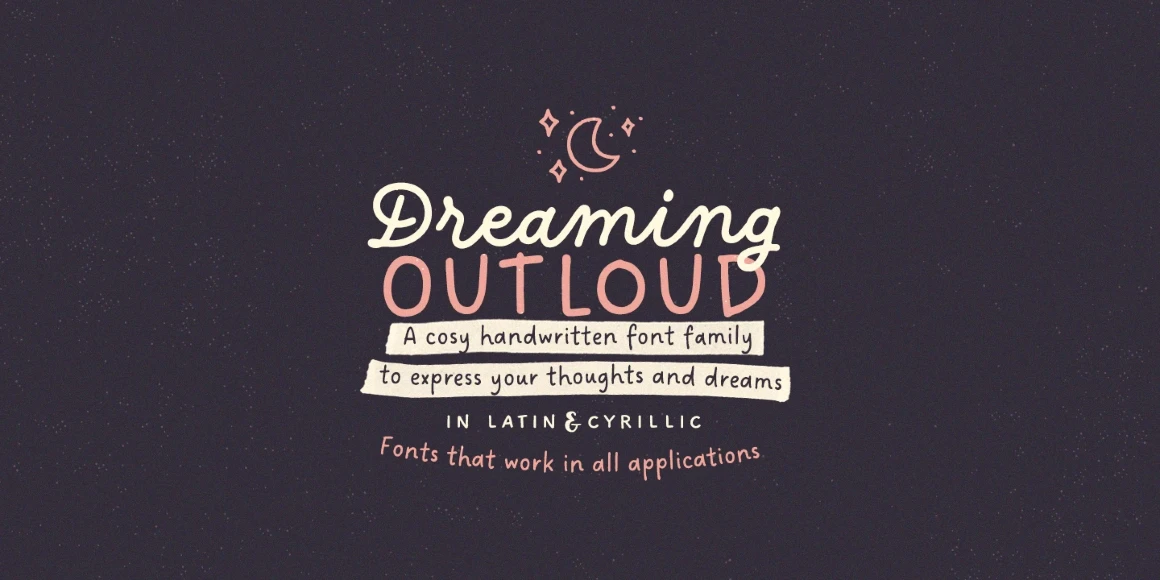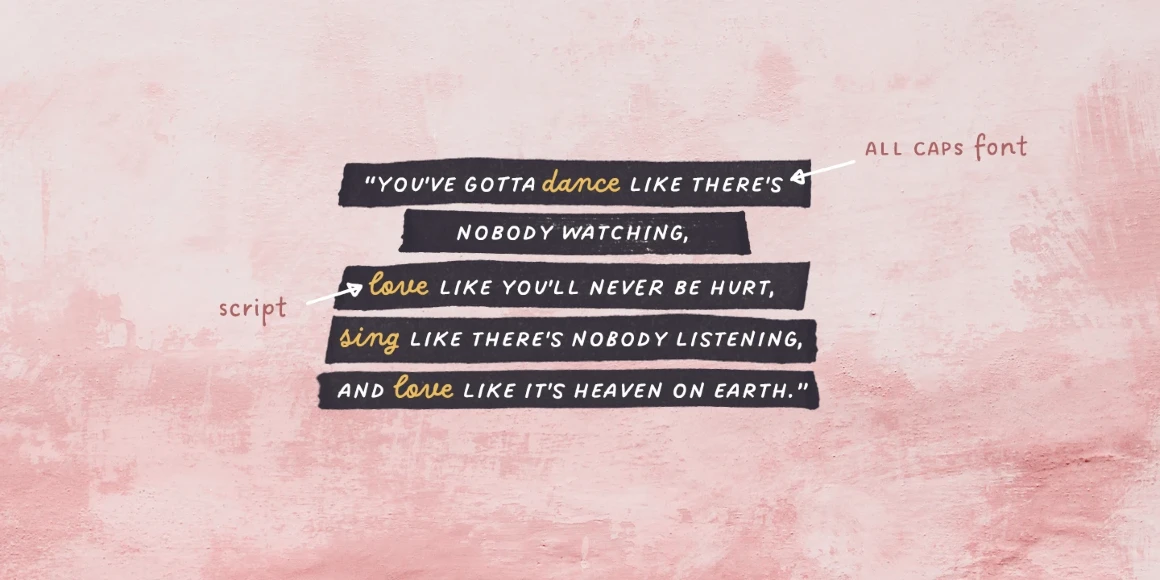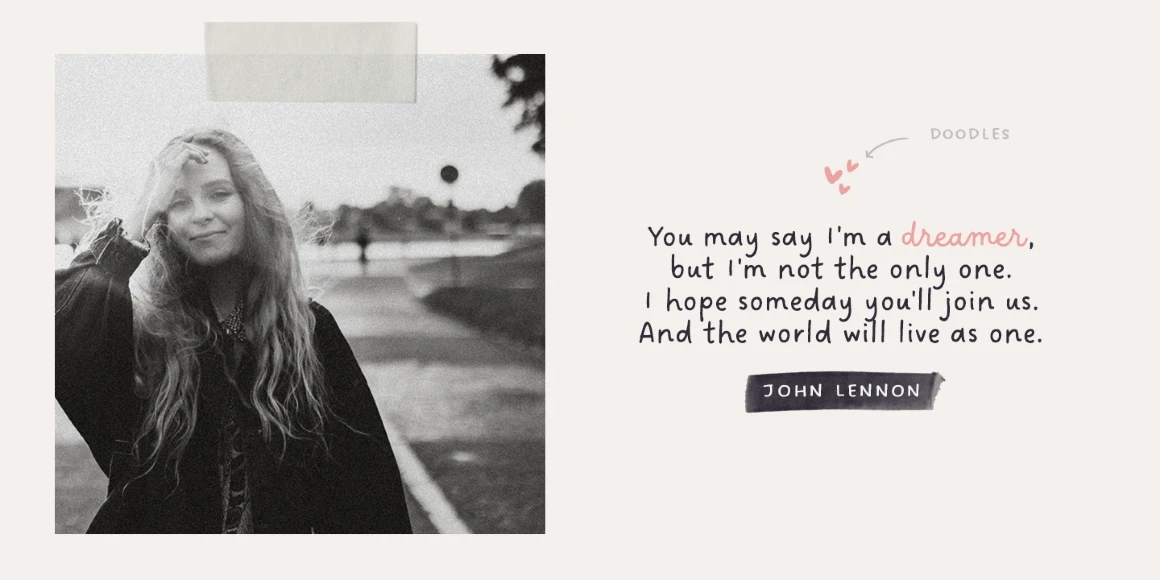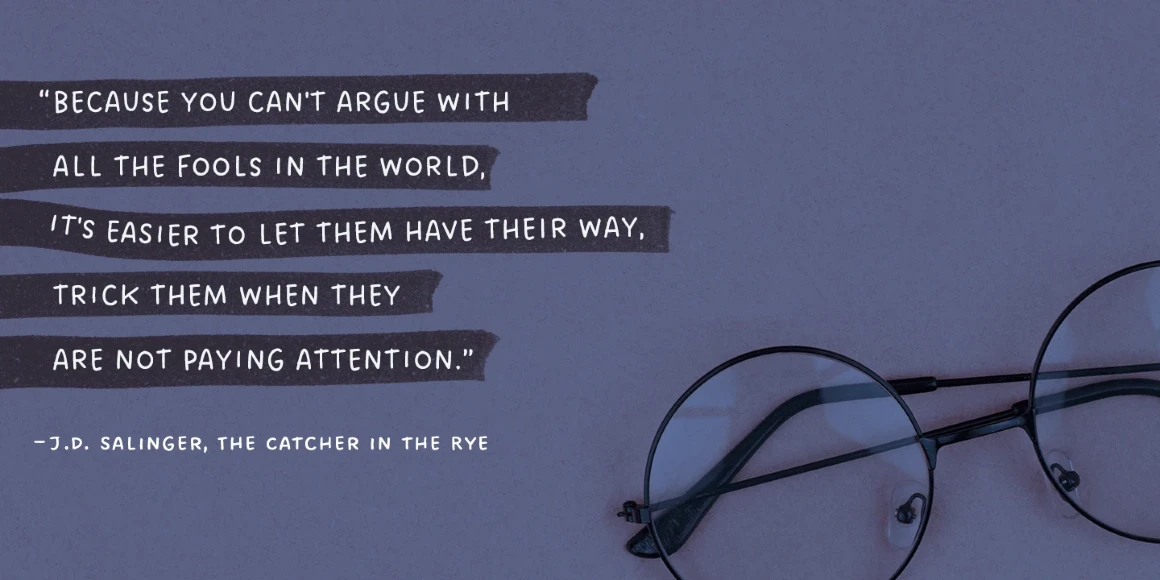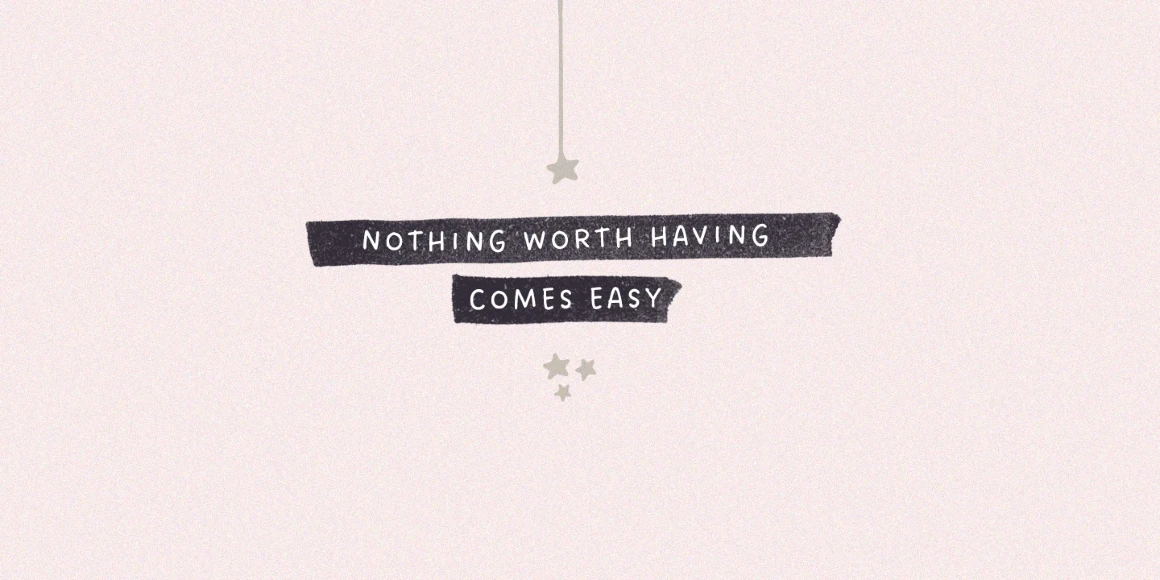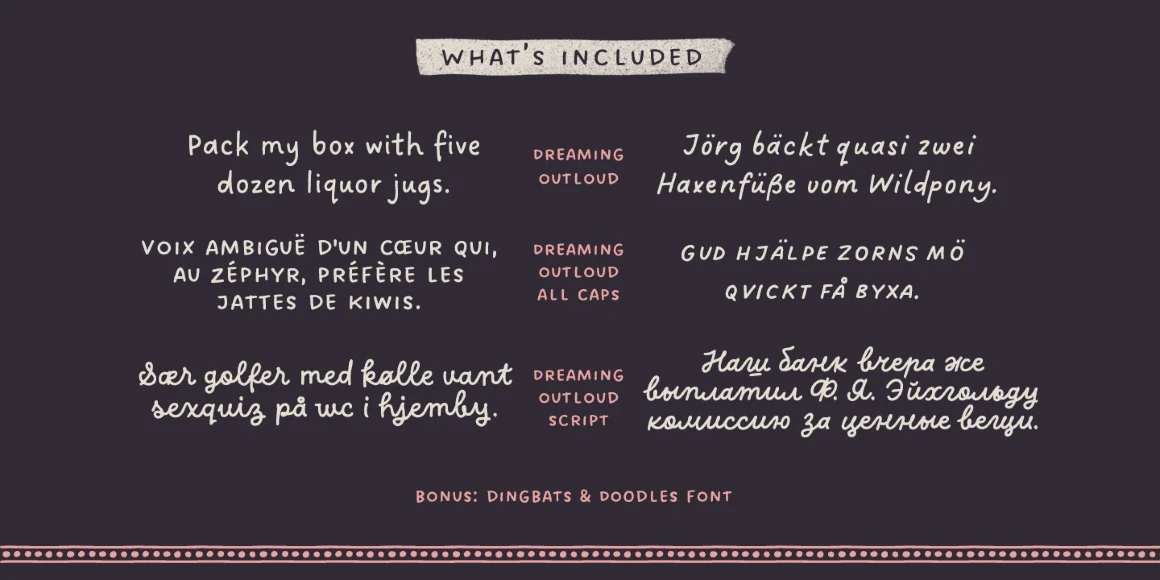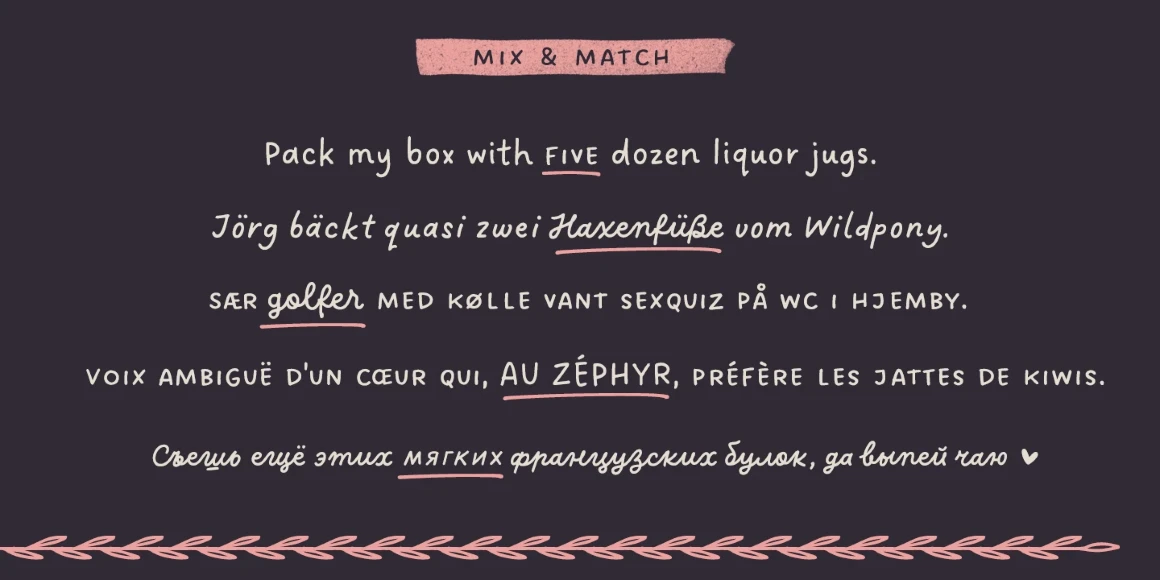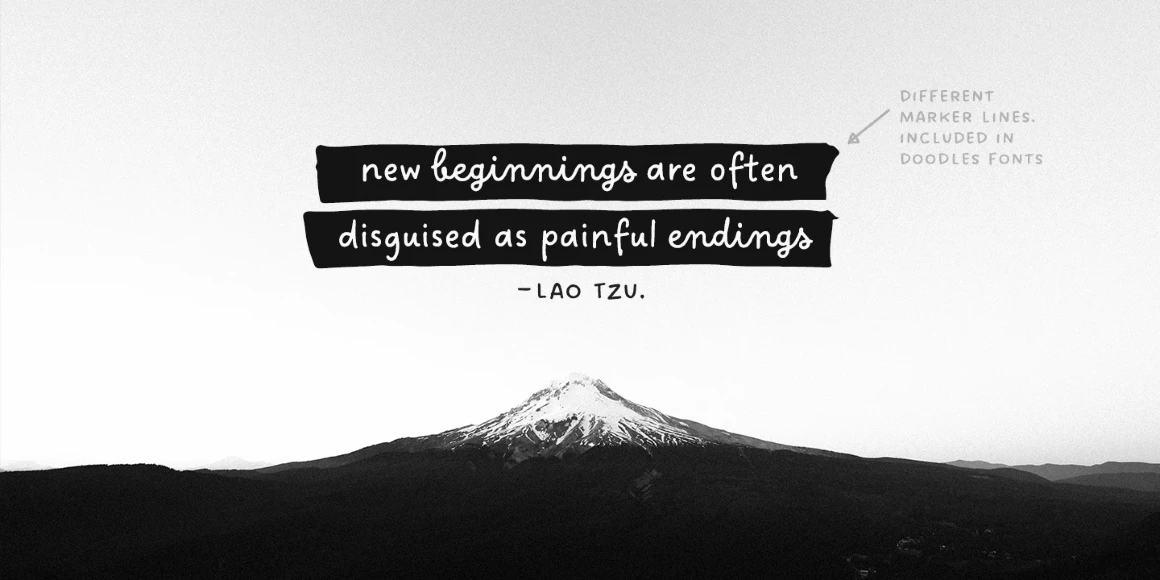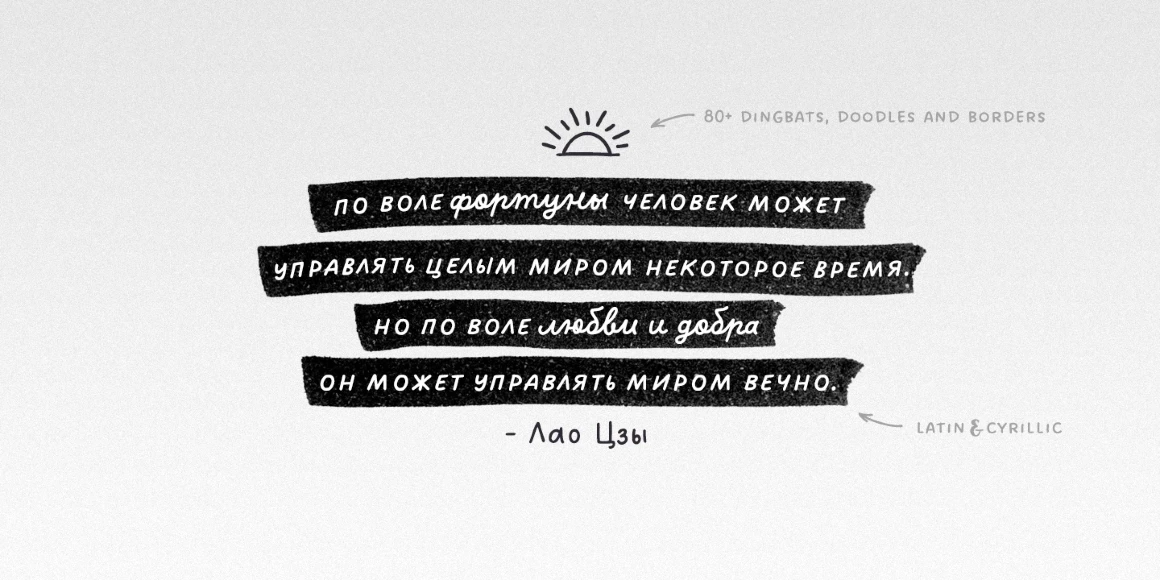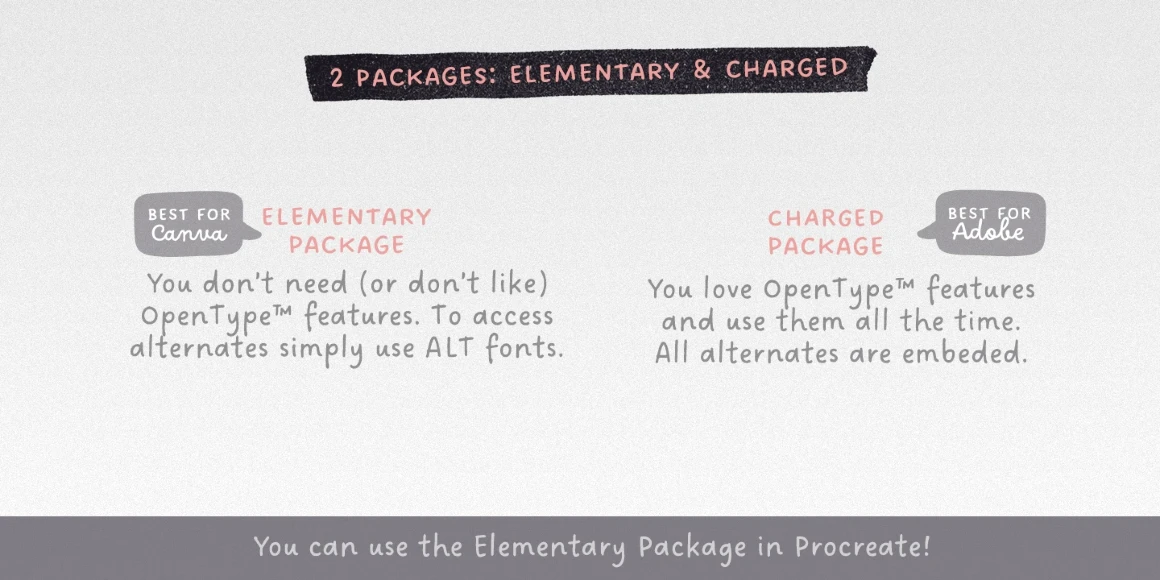
Dreaming Outloud Sans
Dreaming Outloud Sans Caps
Dreaming Outloud Sans Christmas Doodles
Dreaming Outloud Sans Doodles
Dreaming Outloud Sans Regular
Dreaming Outloud Sans Caps Slanted
Dreaming Outloud Sans Slanted
Say hello to Dreaming Outloud, a casually friendly handwritten family. Easy to use and perfect for expressing your thoughts, posting quotes or daily updates on social media, designing postcards, or using on the web. 8 handwritten fonts - a playful primary script, handy stylized sans, plus two varieties of doodles! All are made to complement each other in the best possible way.